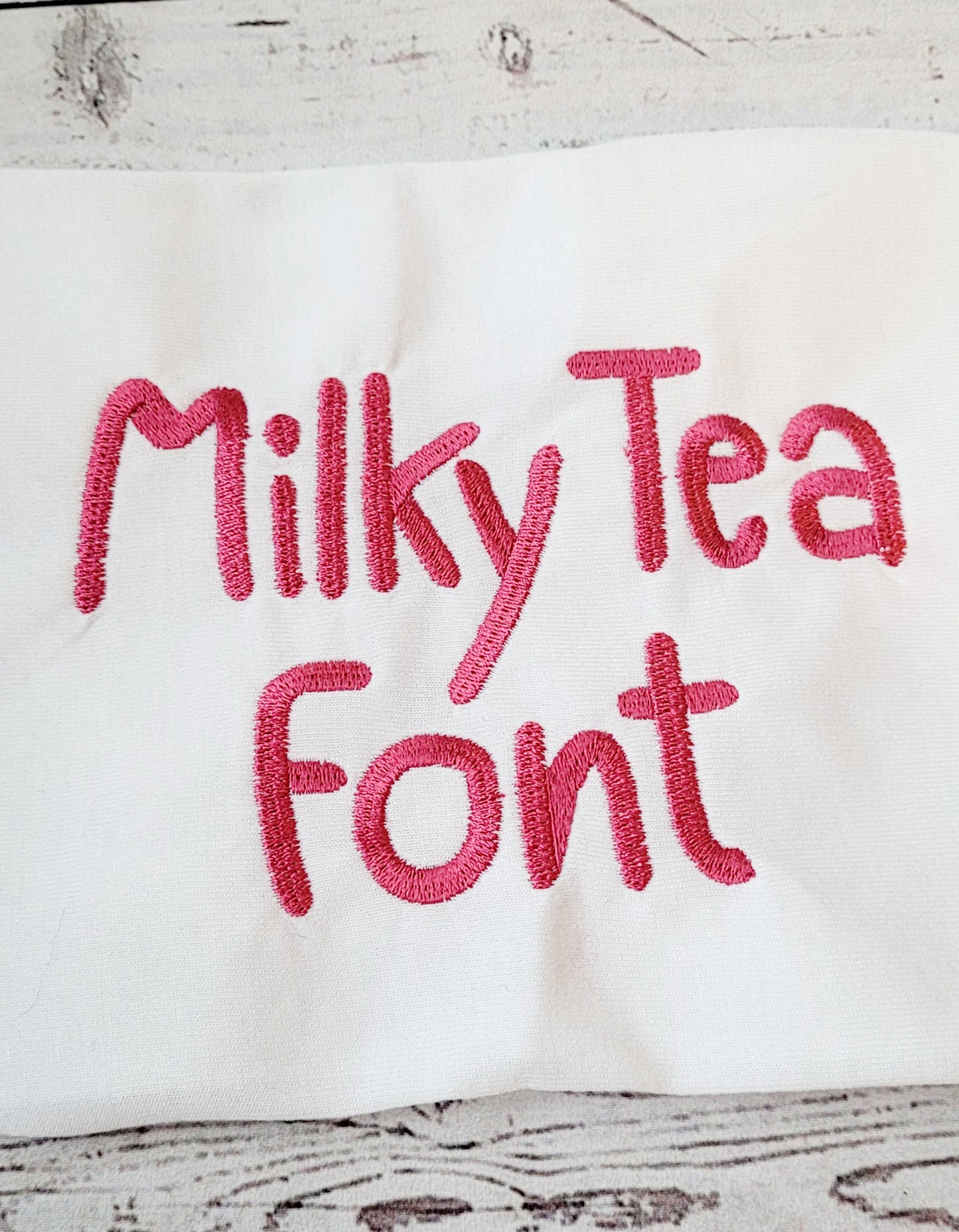
Milky Tea Font Machine Embroidery File
Indulge in delicious designs with the Milky Tea Font Machine Embroidery File. This font will add a unique touch to any project, making it stand out from the rest. Perfect for adding a quirky and playful element to your creations. Let your imagination run wild with this versatile embroidery file.